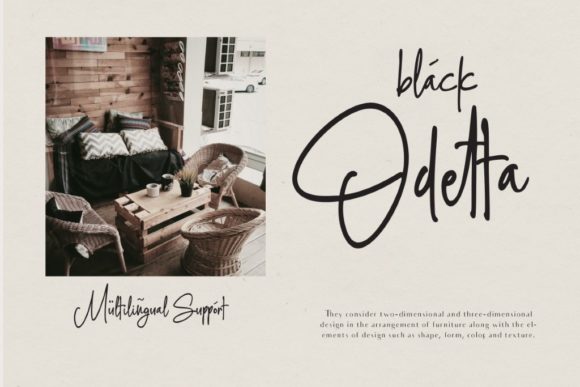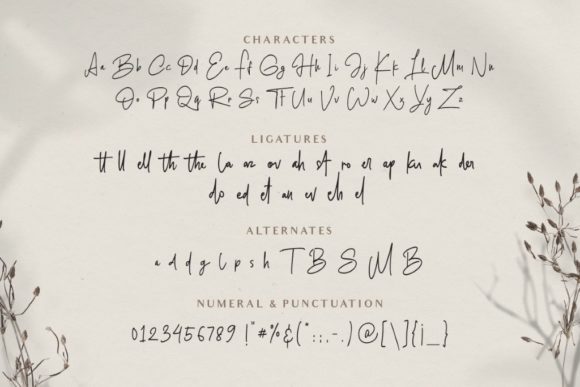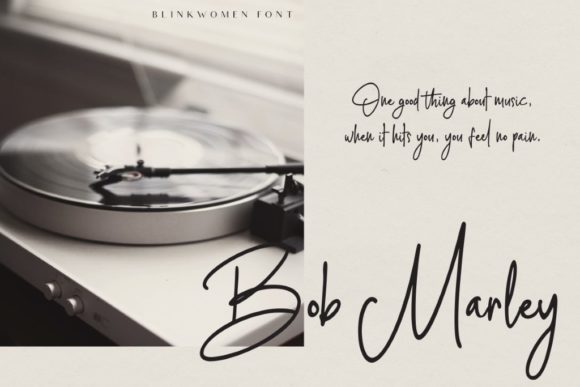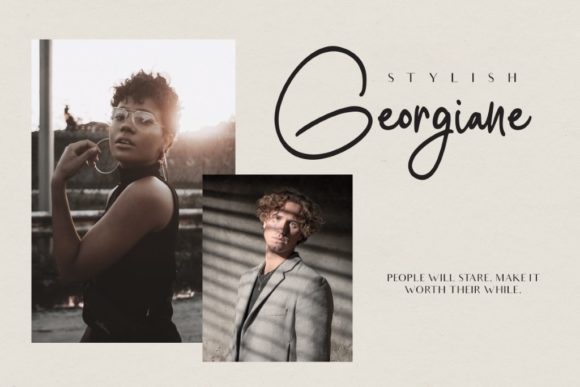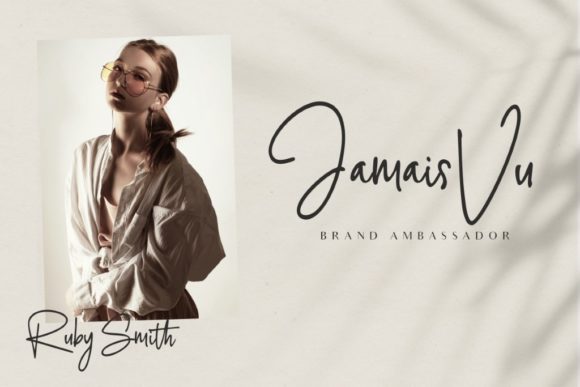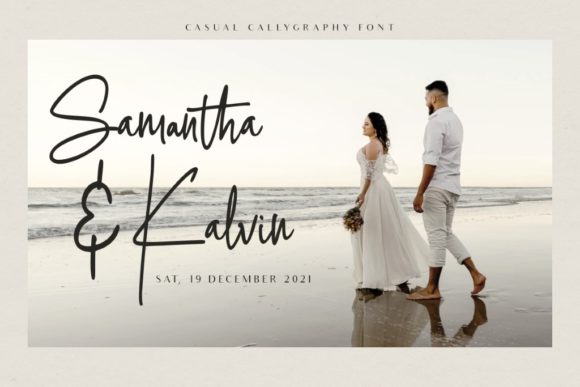
The Perfect Brush Stroke: Unlocking the Power of Blinkwomen Font
Have you ever found yourself scribbling down a brilliant idea on a napkin or a sticky note, only to realize that the imperfect handwriting is exactly what makes it special? For designers, capturing that organic, human touch is key to creating a lasting impression. That’s where the Blinkwomen Font comes in – a modern, handwritten font that perfectly balances simplicity and authenticity.
This versatile font is designed for a wide range of applications, from branding and signature designs to wedding invitations and product packaging. Its value lies in its ability to convey a sense of personality and character, making it an invaluable tool for designers looking to add a touch of whimsy to their projects.
- Unique Characteristics: Blinkwomen Font features a unique blend of modern and vintage elements, with intricate details and ornate flourishes that set it apart from other fonts.
Blinkwomen Font Review
When I first saw the Blinkwomen font, I was immediately drawn to its playful, whimsical feel. ✨ The font’s cursive lines and flowing letters make it perfect for adding a touch of femininity to any design project. The font also comes in a variety of weights and styles, making it easy to find the right look for your needs.
- ✨ The font’s unique, hand-drawn feel adds a personal touch to designs.
- ✨ The various weights and styles provide plenty of options for customization.
- ✨ The font is highly legible, even at smaller sizes.
However, there are a few limitations to consider. ⚠️ The font may not be suitable for formal or professional designs, as it has a somewhat playful and casual feel. Additionally, the font may not be as readable in certain fonts sizes or on certain devices.
Overall, I think the Blinkwomen font is a great choice for designers looking to add a touch of personality to their projects. While it may not be the best choice for every design, it’s a versatile and fun font that’s sure to add some visual interest to your work.
The Blinkwomen Font is ideal for use in creative and playful designs, such as:
- Baby and children’s products
- Home decor and furniture design
Tips for Getting the Most Out of Blinkwomen Font
To get the most out of the Blinkwomen Font, try the following:
- Use it in combination with bold and italic styles to add emphasis and visual interest.
- Choose a bold and colorful cover design that incorporates Blinkwomen Font.
- Use Blinkwomen Font for journal titles, headings, and captions to add a touch of playfulness.
- Combine with hand-drawn illustrations and watercolor textures to create a whimsical atmosphere.
- Pair Blinkwomen Font with a clean and minimalist layout to balance out the playfulness.
- Use a mix of uppercase and lowercase letters to add visual interest and create a sense of movement.
- Use Blinkwomen Font as the primary font for headings and titles to convey a sense of elegance.
- Combine with a clean and modern sans-serif font for body text to create a balanced look.
Q: Does the Blinkwomen Font support advanced typographic features?
Yes, the Blinkwomen Font supports a range of advanced typographic features, including ligatures, fractions, and opentype features such as swashes and alternates. These features can be accessed in your design application by using the font’s built-in features or by applying custom styles